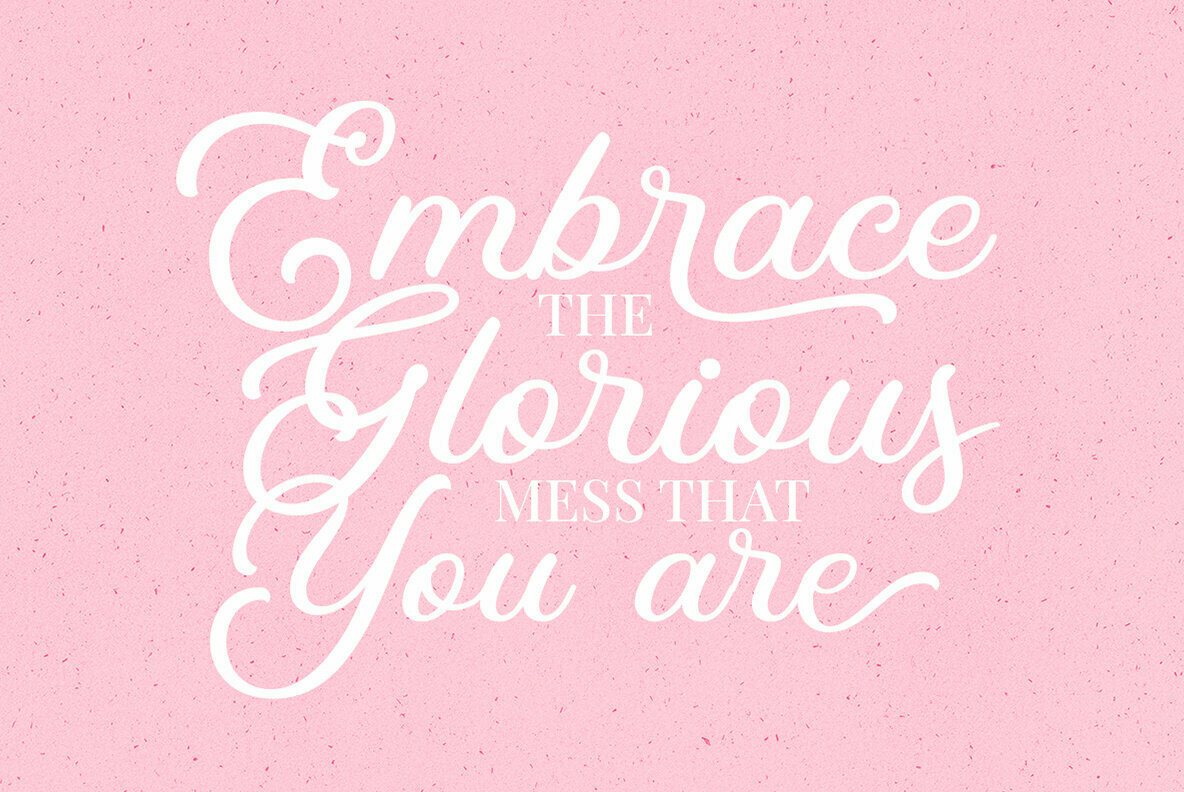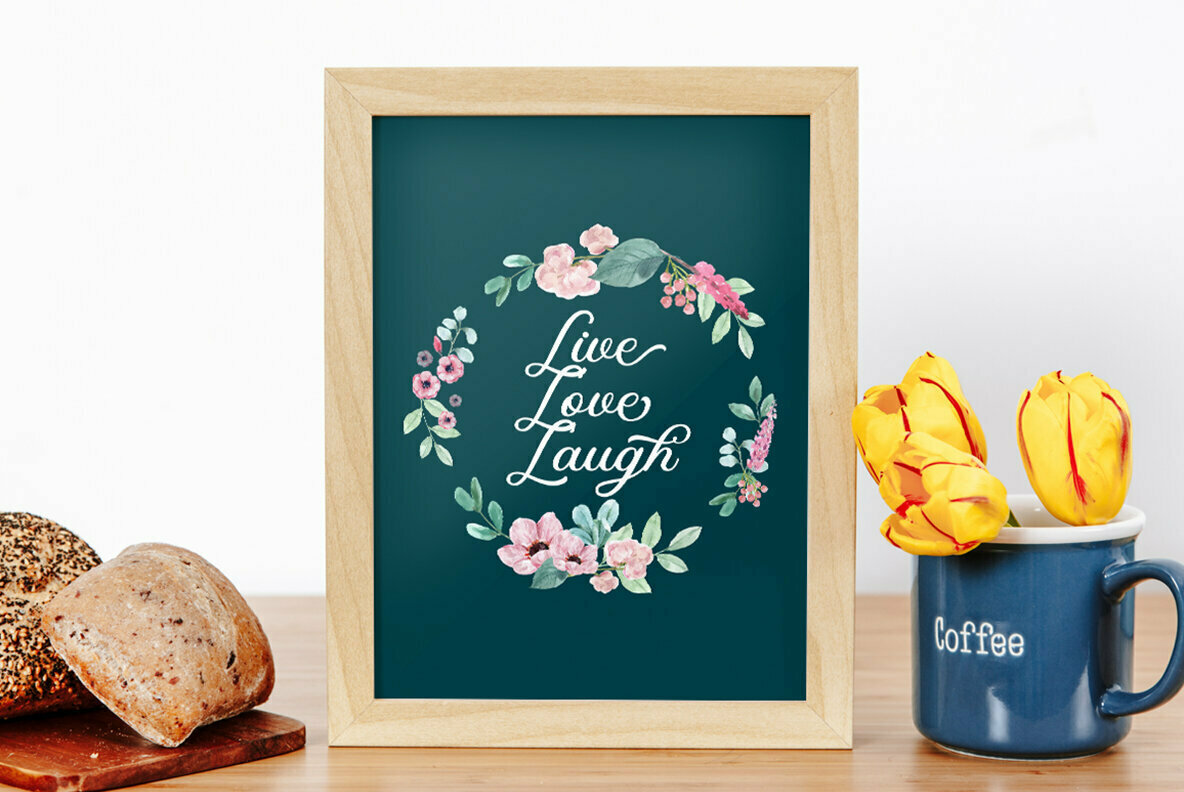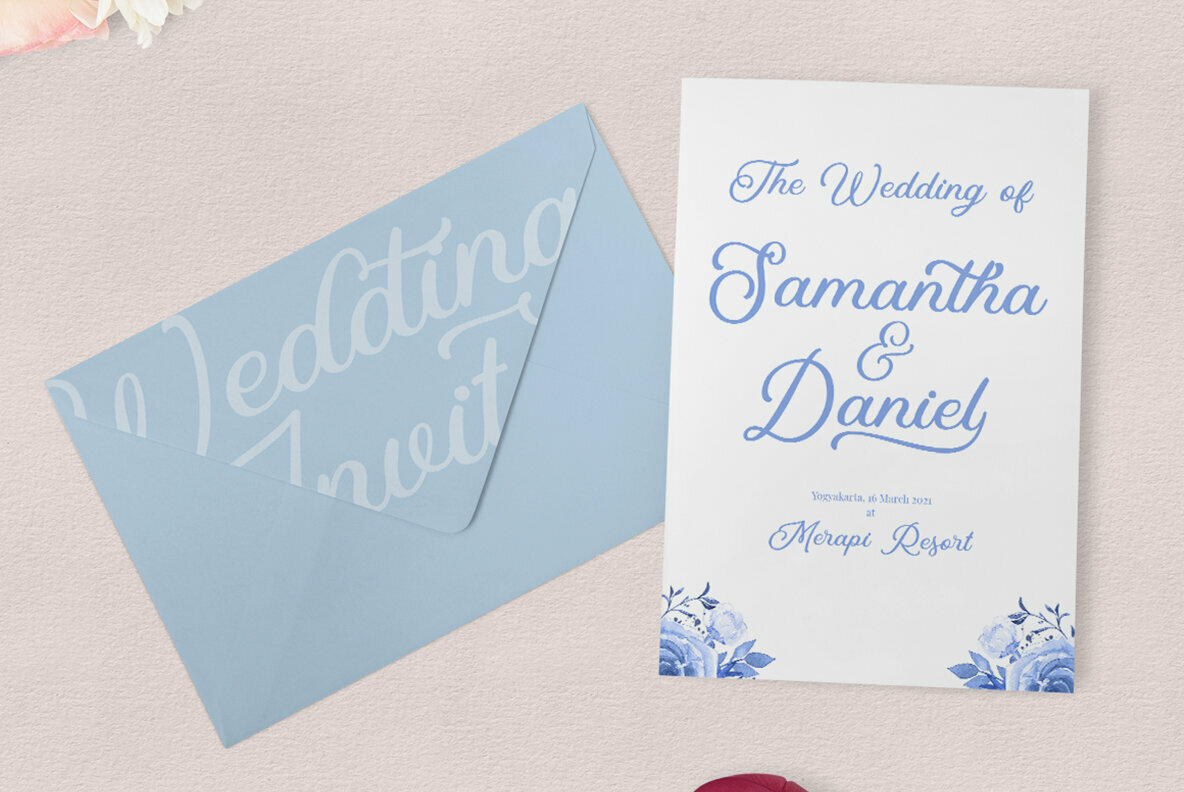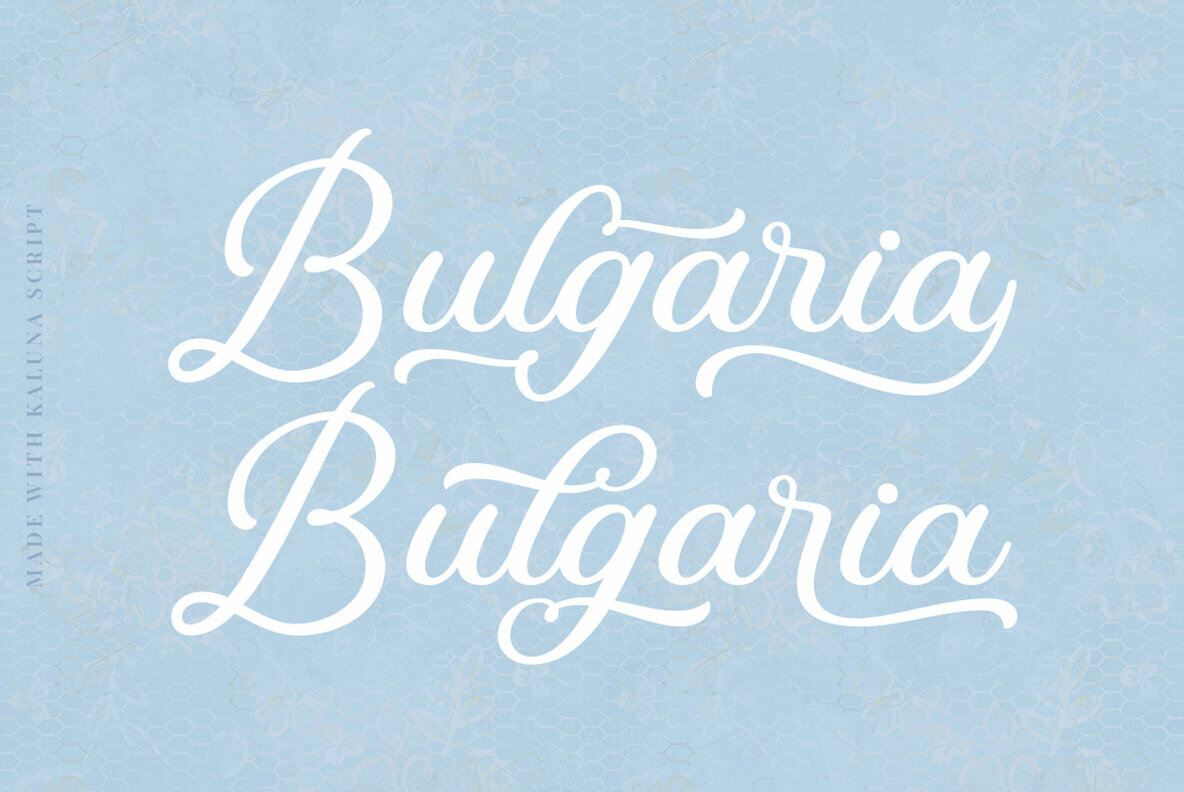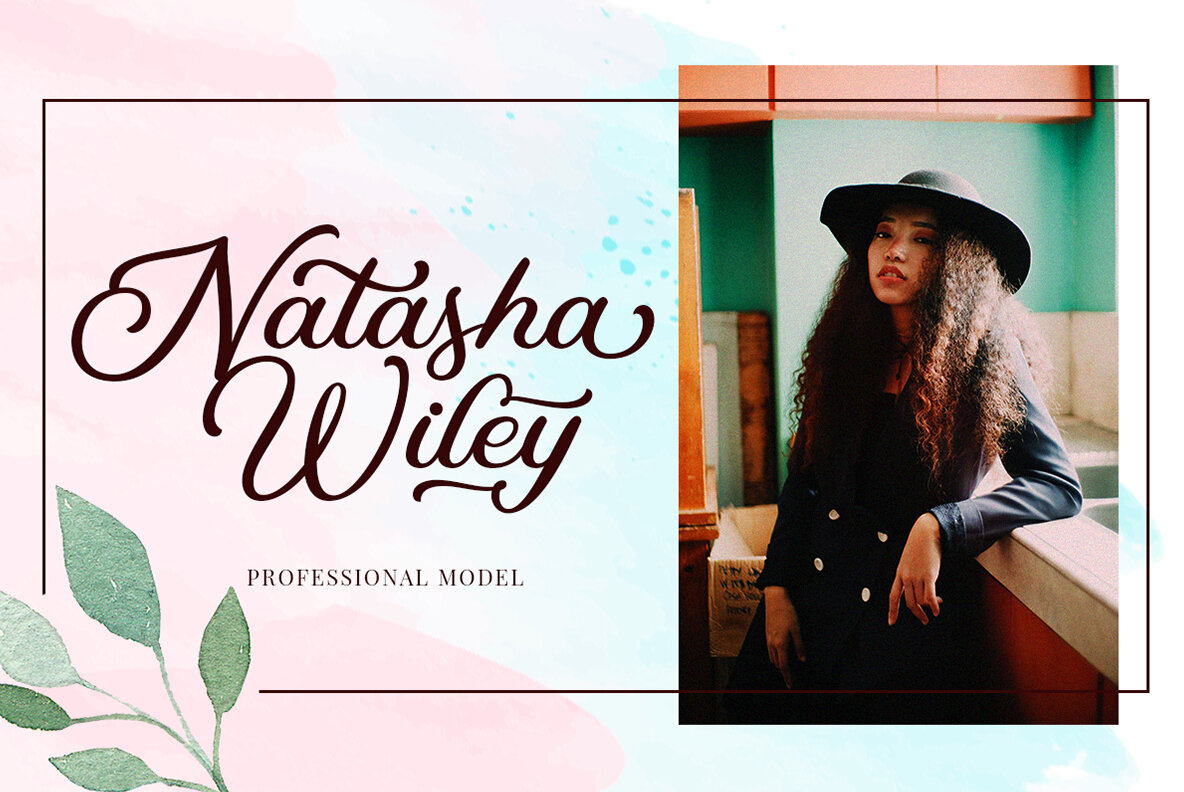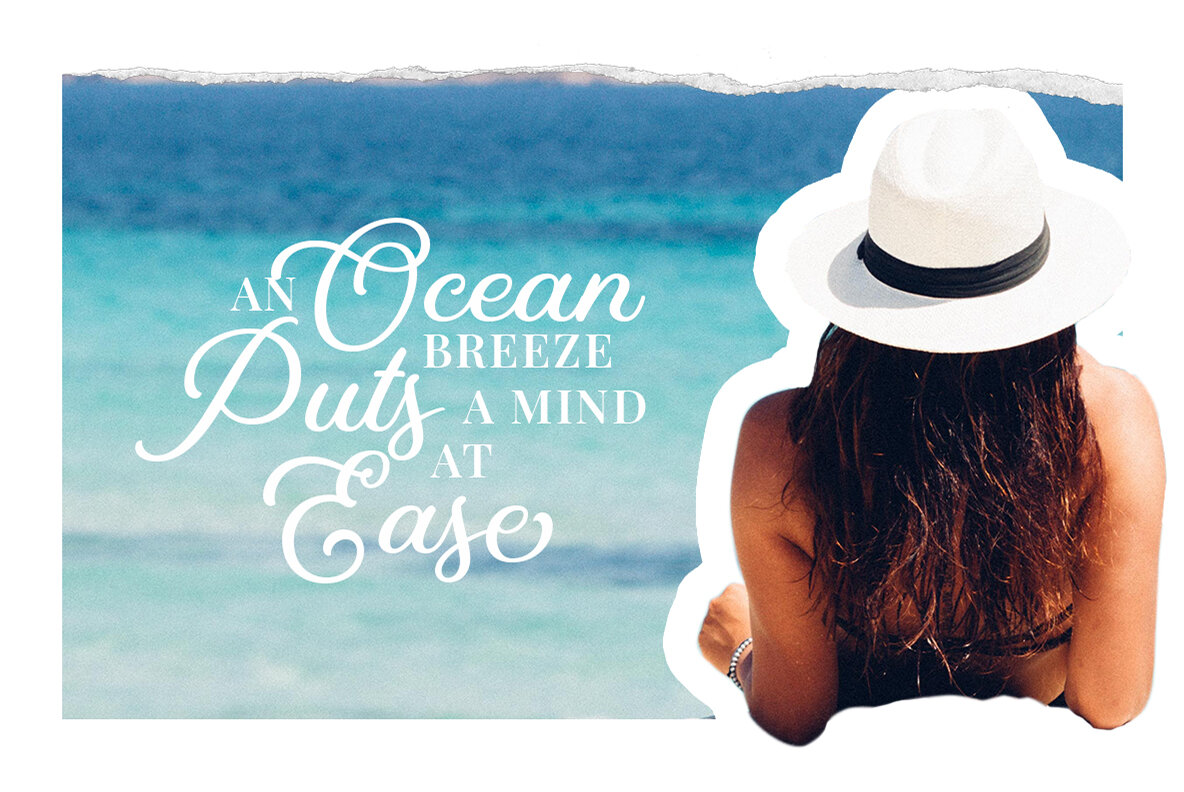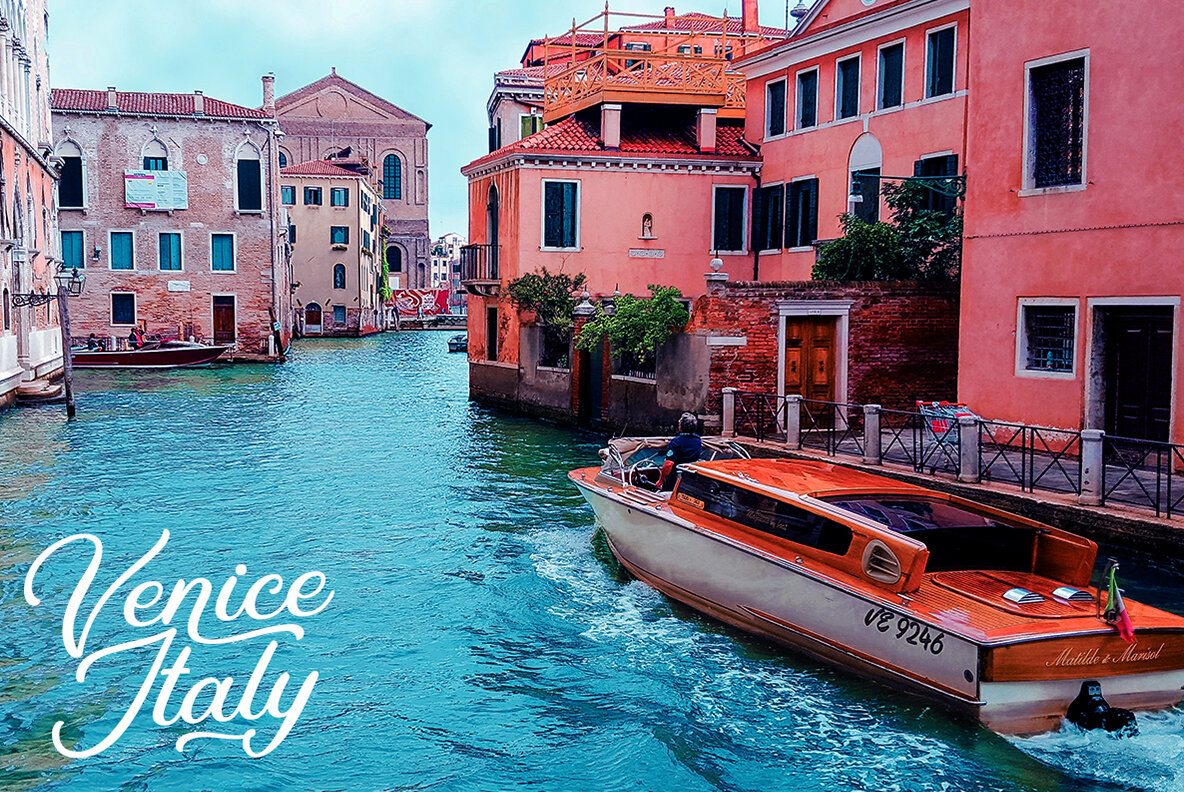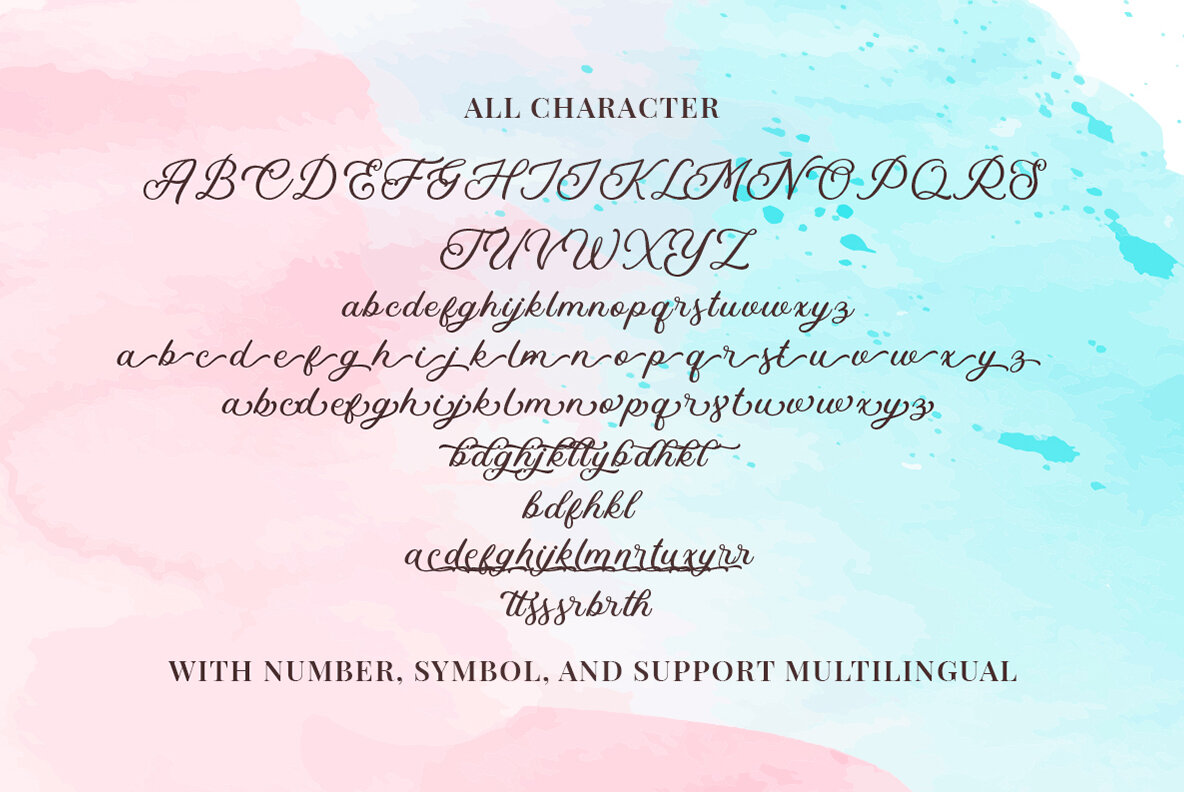
Kaluna Font
Kaluna Script Regular
Kaluna offers a delightful script typeface, complete with an extensive array of swashes. Its design is ideal for those seeking a standout typeface for headlines, logotypes, apparel, invitations, branding, packaging, and advertising purposes.Kaluna: A Charming Script Typeface with Versatile Applications